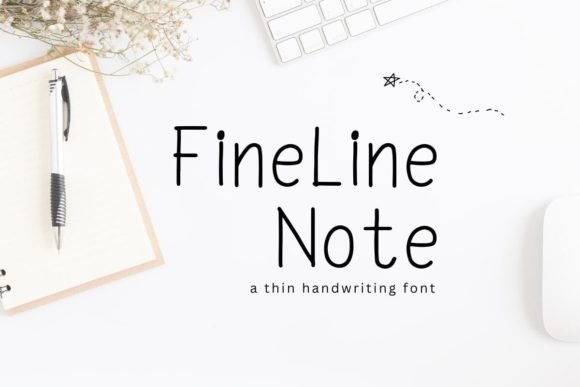
Introducing Fineline Note Font, the ultimate script font that will elevate your creative projects to new heights! Created by the talented chiraa.design, this font is a must-have for anyone looking to add a touch of elegance and charm to their designs.
With its cute and simple handwritten style, Fineline Note Font is perfect for a wide range of purposes. Whether you're creating a beautiful planner, designing eye-catching magazine covers, crafting stunning packaging, or even working on a luxurious perfume or cosmetics line, this font is your secret weapon.
One of the key features of Fineline Note Font is its versatility. It seamlessly blends in with any design, effortlessly adding a touch of sophistication and personality. Its clean and crisp lines make it easy to read, ensuring that your messages are conveyed effectively.
But what sets Fineline Note Font apart from the rest? Well, let's talk about its emotional impact. Imagine the feeling of flipping through a planner with beautifully handwritten quotes, inspiring you to seize the day. Picture a magazine cover that instantly grabs your attention with its elegant typography. Envision a perfume bottle that exudes luxury and class with its meticulously designed label. All of this is possible with Fineline Note Font.
Not only does Fineline Note Font capture attention, but it also evokes a sense of warmth and friendliness. Its handcrafted nature adds a personal touch to your designs, making them relatable and inviting. It's like having a trusted friend guiding your audience through your content.
But we haven't even touched on the technical aspects yet. Fineline Note Font is optimized for Procreate, ensuring a seamless experience for digital artists and designers. Whether you're sketching, lettering, or creating digital masterpieces, this font will enhance your workflow and take your creativity to the next level.
In conclusion, if you're looking for the best fonts for Procreate, Fineline Note Font is your go-to choice. Its cute simplicity, versatility, emotional impact, and technical excellence make it a must-have for any designer or artist. Unlock your creative potential and make a lasting impression with Fineline Note Font today!